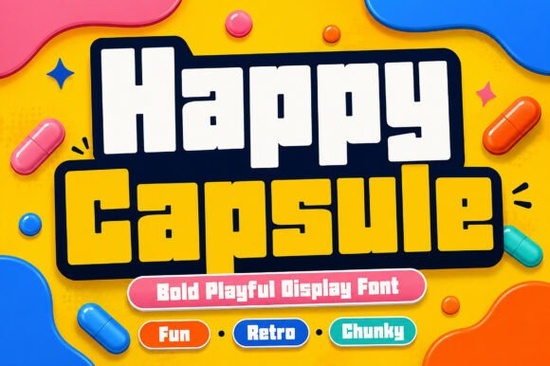
Looking for a font that brings energy and personality to your designs? Happy Capsule is a bold, chunky display typeface with a playful vibe that stands out on posters, packaging, merchandise, and social media. Its geometric shapes and retro-inspired structure give it a modern feel while keeping things fun and approachable perfect when you want your project to grab attention without trying too hard.
What makes Happy Capsule stand out?
Unlike thin or minimalist fonts, Happy Capsule uses thick, block-style letterforms that deliver strong visual impact. This makes it ideal for anything where clarity and presence matter like branding, product labels, or event flyers. The rounded edges and balanced proportions keep it friendly, not harsh, so it works well for kids’ products, toy packaging, or cheerful brand identities.
You’ll find it especially useful when designing:
- Children’s books and educational materials
- Festival or party posters
- T-shirt graphics and print-on-demand items
- Snack or beverage packaging with a fun twist
- Gaming titles, app icons, or mobile game UI elements
How does it fit into different creative projects?
Because of its clear legibility at larger sizes, Happy Capsule shines in display settings. Whether you're working on a logo for a new children's toy line or a vibrant Instagram post for a local bakery, this font adds instant character. It pairs well with simple backgrounds or bright colors letting the typography do the talking.
It’s also great for digital and physical products alike. Try it on mugs, tote bags, or pillows to create merchandise that feels joyful and memorable. The font’s consistent weight and shape make it reliable across formats, so your design stays sharp whether printed or shared online.
Where can you use it beyond logos and posters?
Beyond traditional branding, Happy Capsule fits naturally into storytelling visuals. Think about using it for:
- Book covers that aim for a lighthearted or whimsical tone
- Merchandise for indie game developers or small studios
- Event invitations for birthday parties, baby showers, or school fairs
- Social media banners with a bold, confident look
Its retro-modern style gives it versatility it doesn’t scream “old-fashioned” but still feels nostalgic in a good way. That balance helps it work across generations, making it a solid choice for family-friendly brands or community-focused businesses.
Why choose this font over others?
If you’ve tried other bold fonts and found them too aggressive or too plain, Happy Capsule strikes a sweet spot. It’s energetic without being overwhelming, and playful without losing professionalism. You can use it for both casual and semi-formal projects, which means fewer fonts needed in your toolkit.
Quick tip: Pair it wisely
To keep your design balanced, pair Happy Capsule with a clean, simple sans-serif font for body text. Avoid using it in long paragraphs save it for headlines, titles, and key messages. And don’t forget to test it at different sizes; its strength really shows when used large.